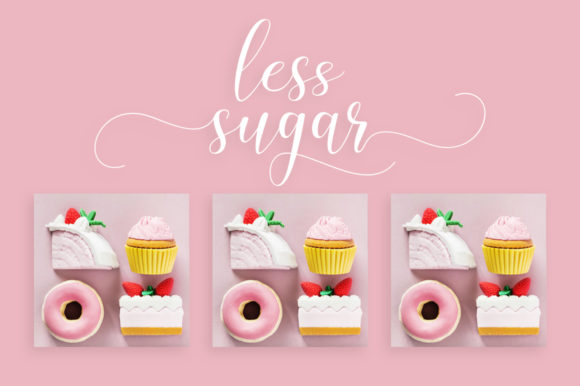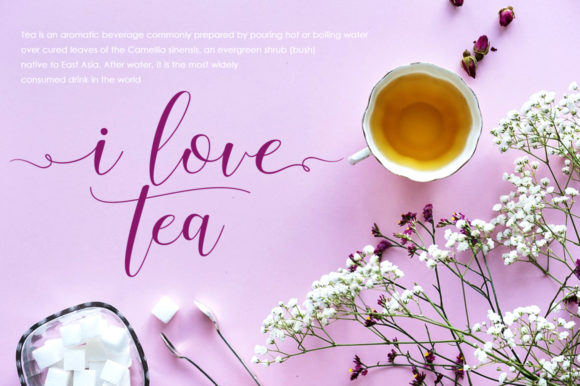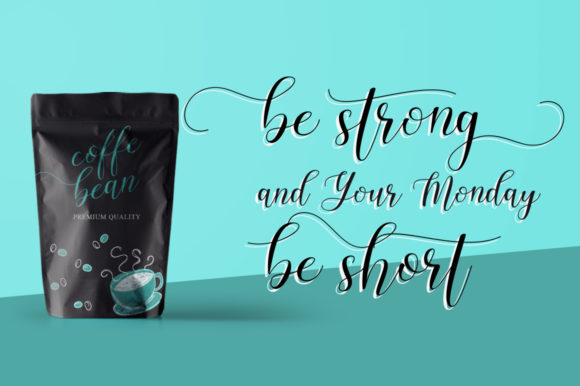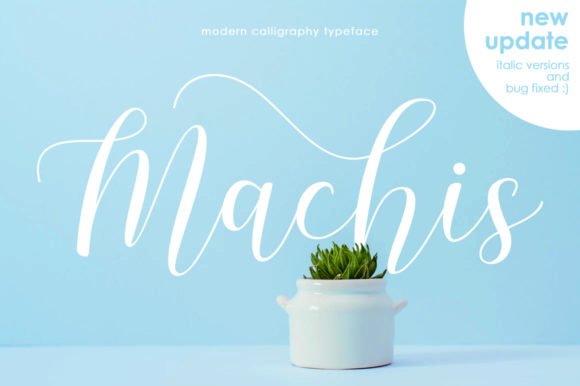
Introduction to Machis Font
The Machis is a modern calligraphy font.
It includes amazing swashes in 3 styles, which gives you the opportunity to create multiple unique designs with just this one download It is suitable for logos, web, stationary kits, banners, greeting cards, and every other design which needs an elegant touch.
Machis Font offers exceptional quality and versatility, making it a valuable addition to your design toolkit. Whether you’re creating for personal projects or commercial use, Machis Font delivers professional results.